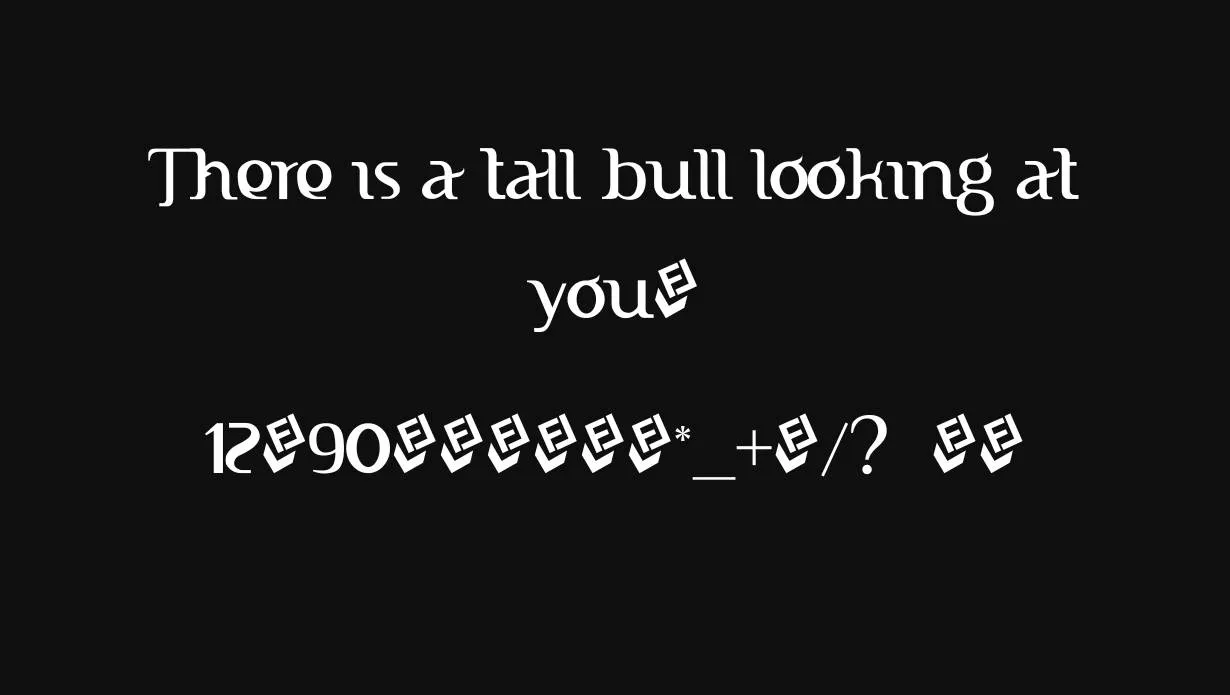
FTF Indonesiana Serif Font Family is a versatile collection of typefaces that offers a range of serif options. With its diverse styles, this font family is suitable for various design applications, providing flexibility and creativity.
Use FTF Indonesiana Serif Font Family to experiment with different looks, ensuring that your text is tailored to the specific tone and atmosphere of your projects.